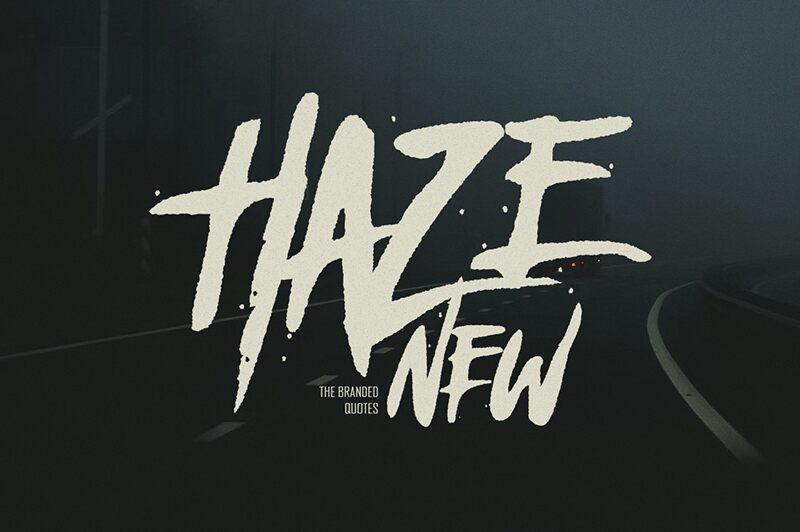
Haze New Defog Demo
Haze New Defog font by The Branded Quotes is a free bold brush font built for tension and impact. Its slashed strokes, razor-sharp terminals, and jittery rhythm feel like wet ink dragged fast across paper—raw, urgent, a little dangerous. A forward lean and uneven pressure create that thriller flick heartbeat, while the rebuilt forms keep it legible at headline sizes without sanding off the grit.
Using Haze New Defog, headlines hit like a riff and linger like an echo—great for film posters, album covers, game titles, streaming thumbnails, event flyers, and merch. This free font shines on high-contrast artwork and moody photography; tighten the tracking to heighten suspense. Pair it with a calm, neutral grotesk for body copy to let the brushwork take center stage.
What's new:
- Made all glyphs solid
- Reduced the splatters
- Retouched some glyphs for visual alignment
- Clean-up version added
- Added multilingual characters
- Added missing punctuation